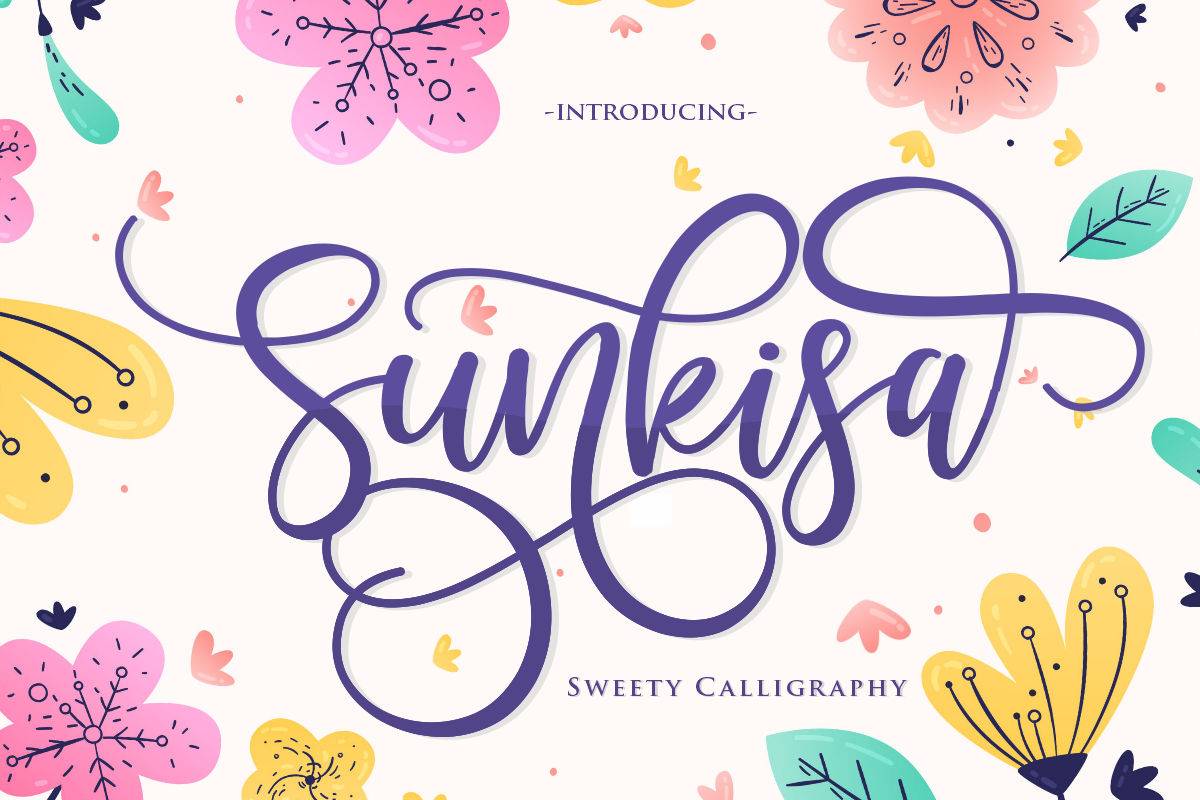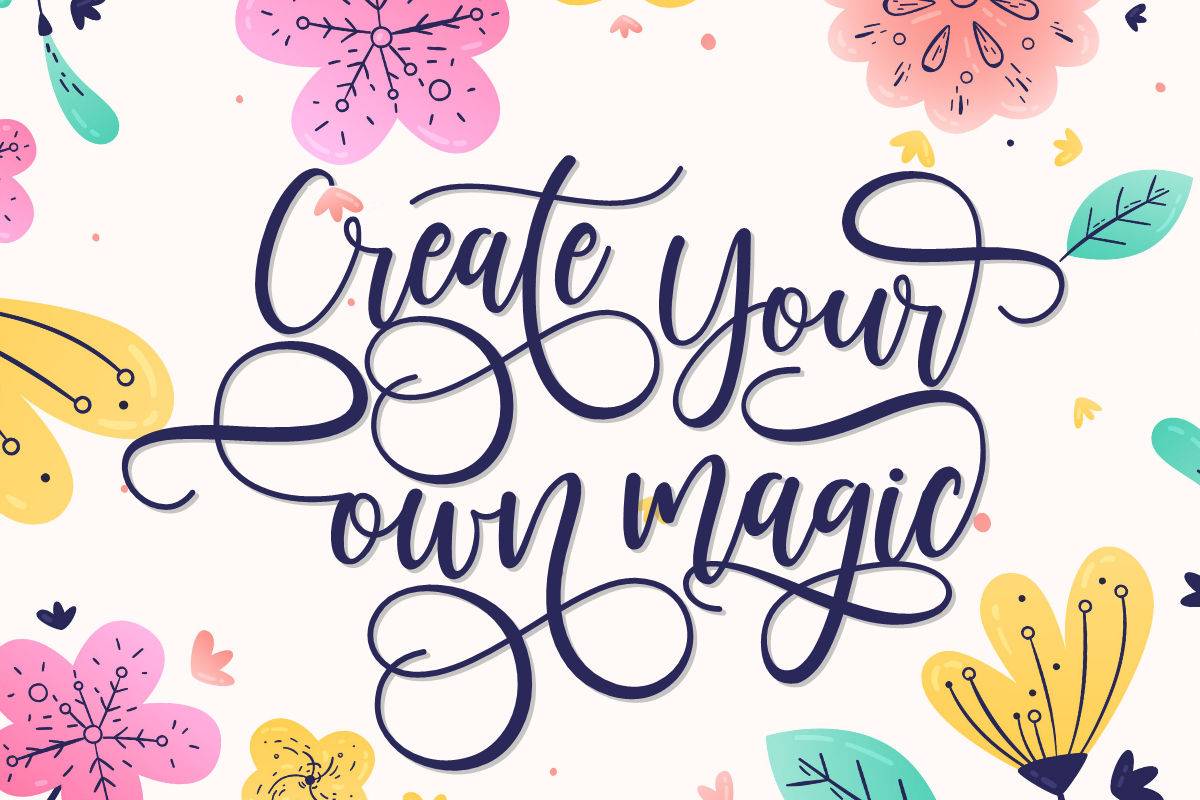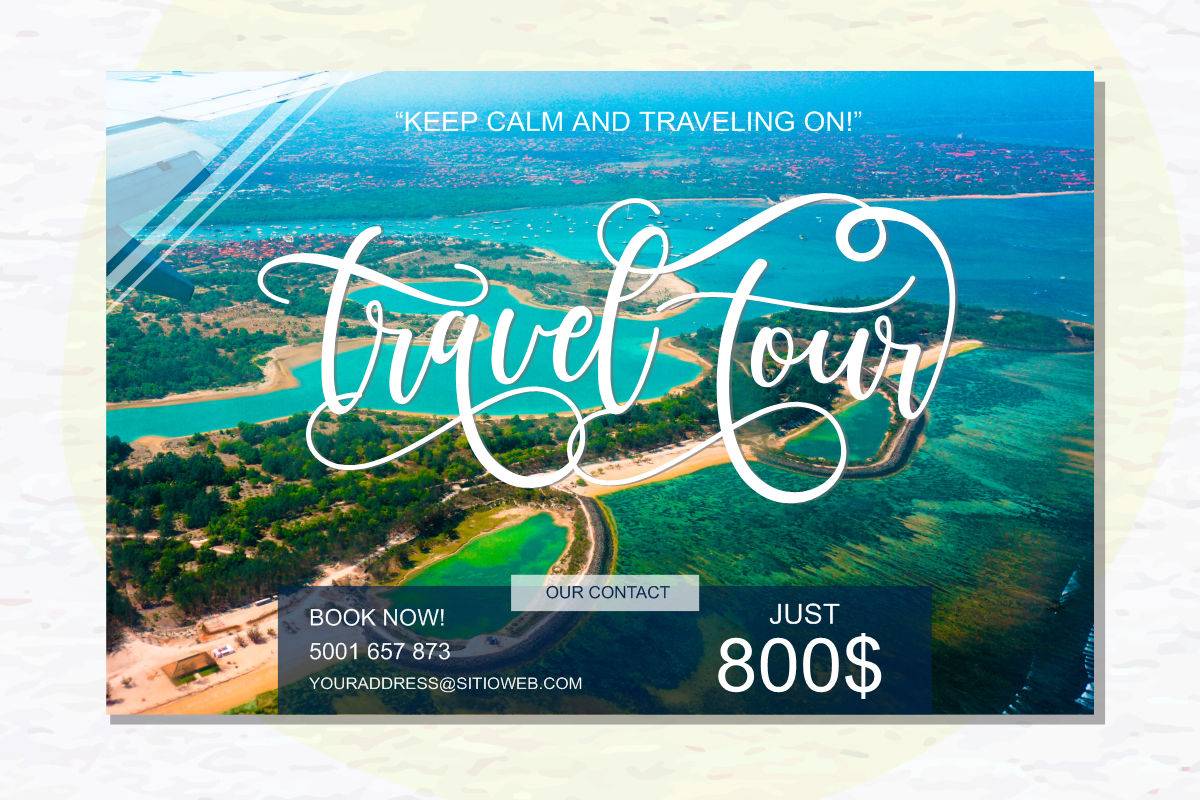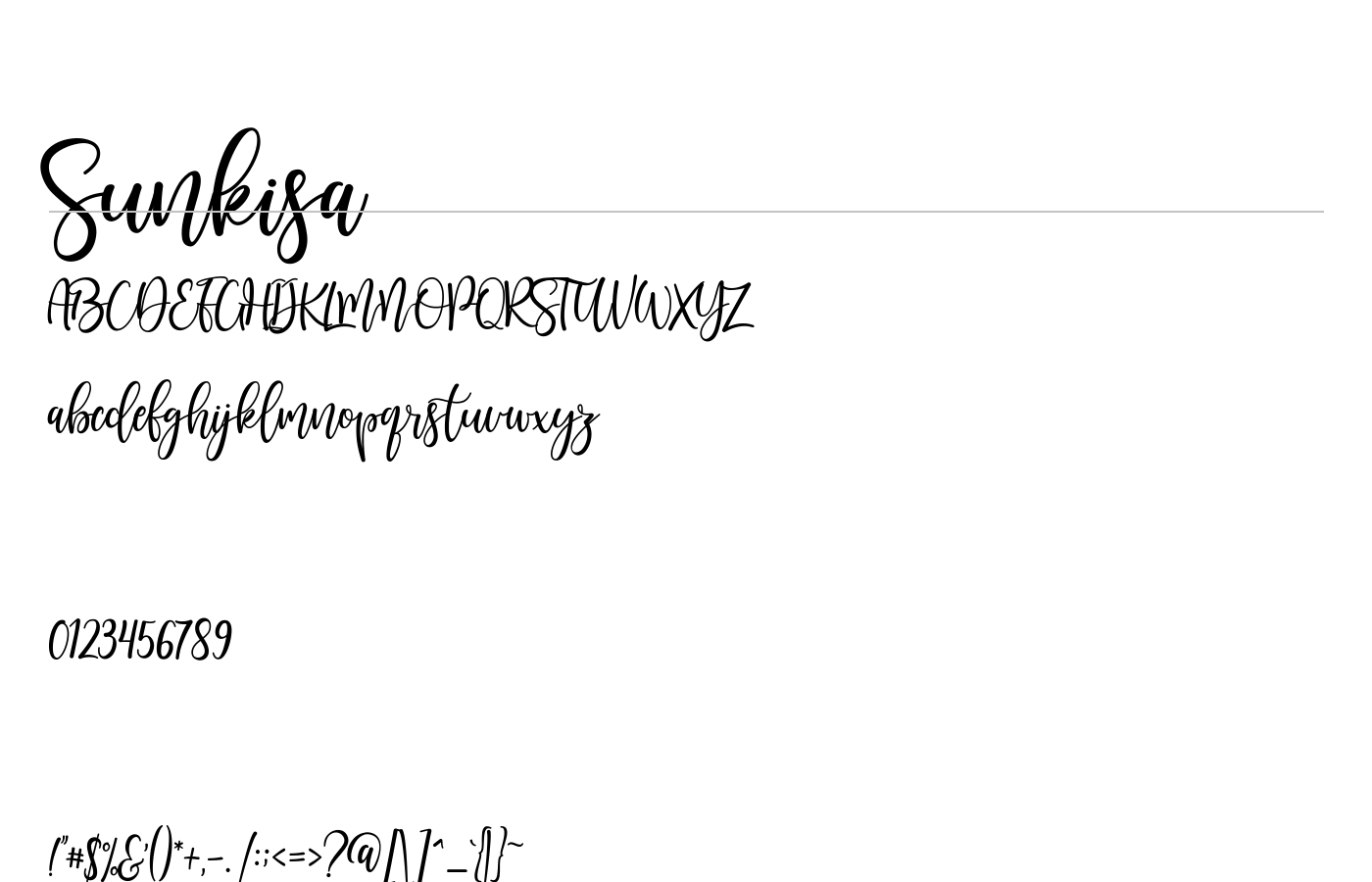
Sunkisa is a delicate, modern script font with elegant, flowing strokes that create a handwritten, feminine feel. Its slender, slightly condensed letterforms and smooth curves make it perfect for stylish branding, invitations, and decorative headlines where a graceful, personal touch is desired. This font brings a warm, sophisticated vibe that works beautifully in fashion, beauty, and lifestyle designs.
| Font family | Sunkisa Font |
| Designer | Gilar Studio |